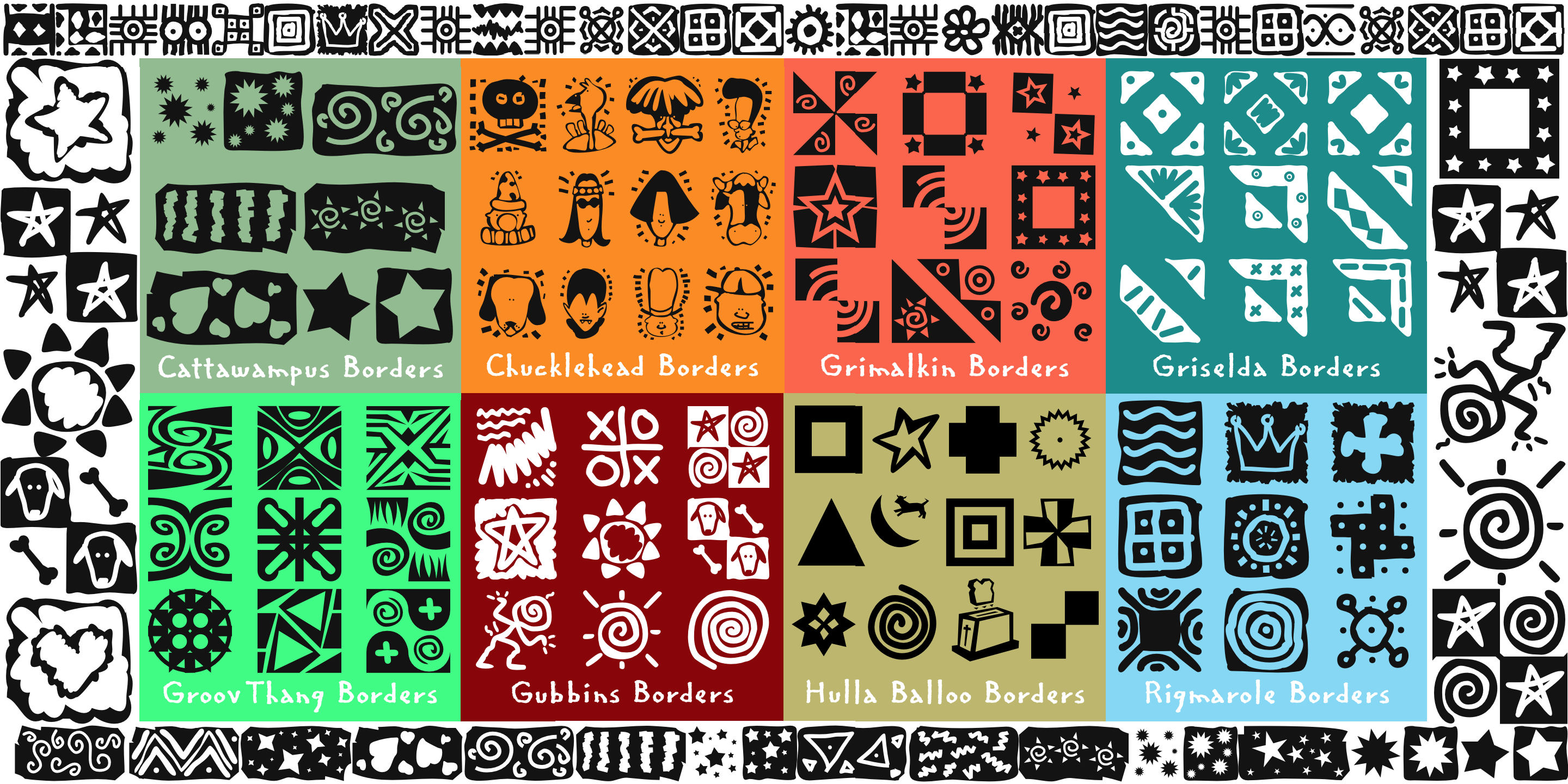
Ampersand Complete Borders (8 fonts)
The collection's variety of images and themes gives you great versatility. Pick a border for your advertising, packaging, menus, signage, book jackets, or on a web page, and really anywhere you can think of! So, have some fun and play with Ampersand! Each Border font include 60+ border parts.